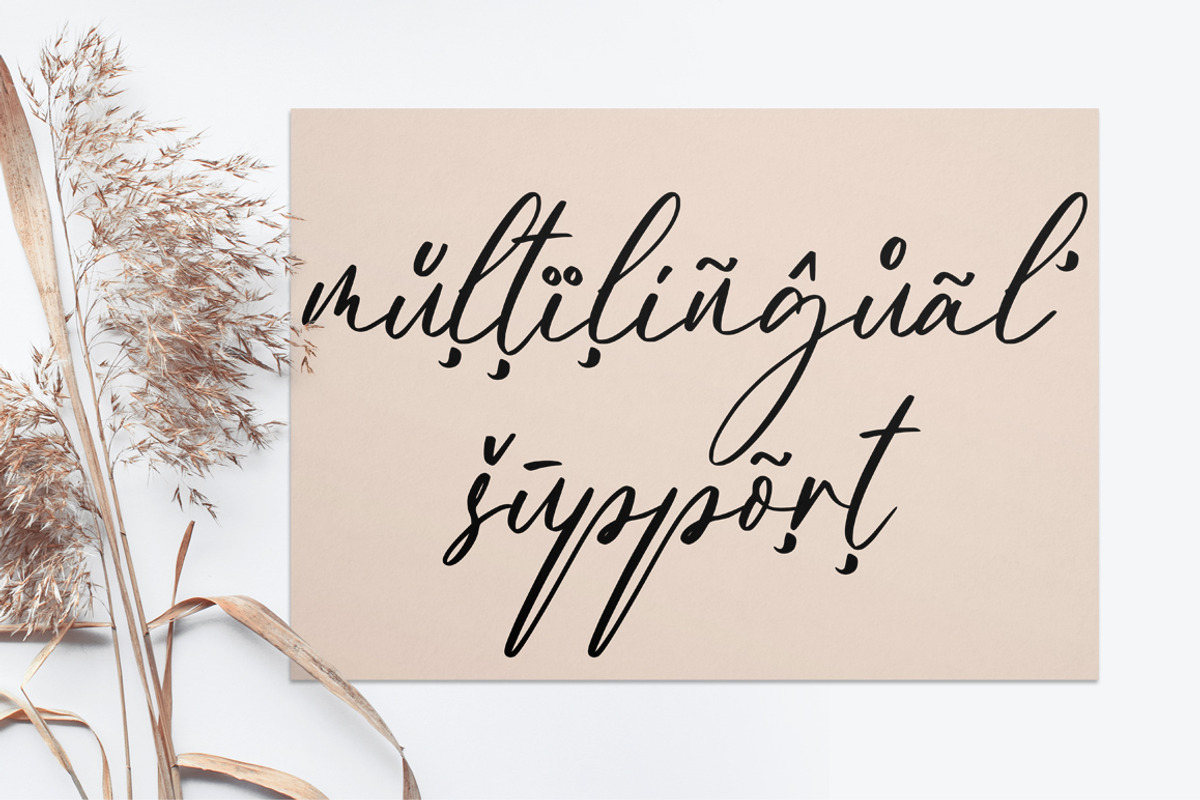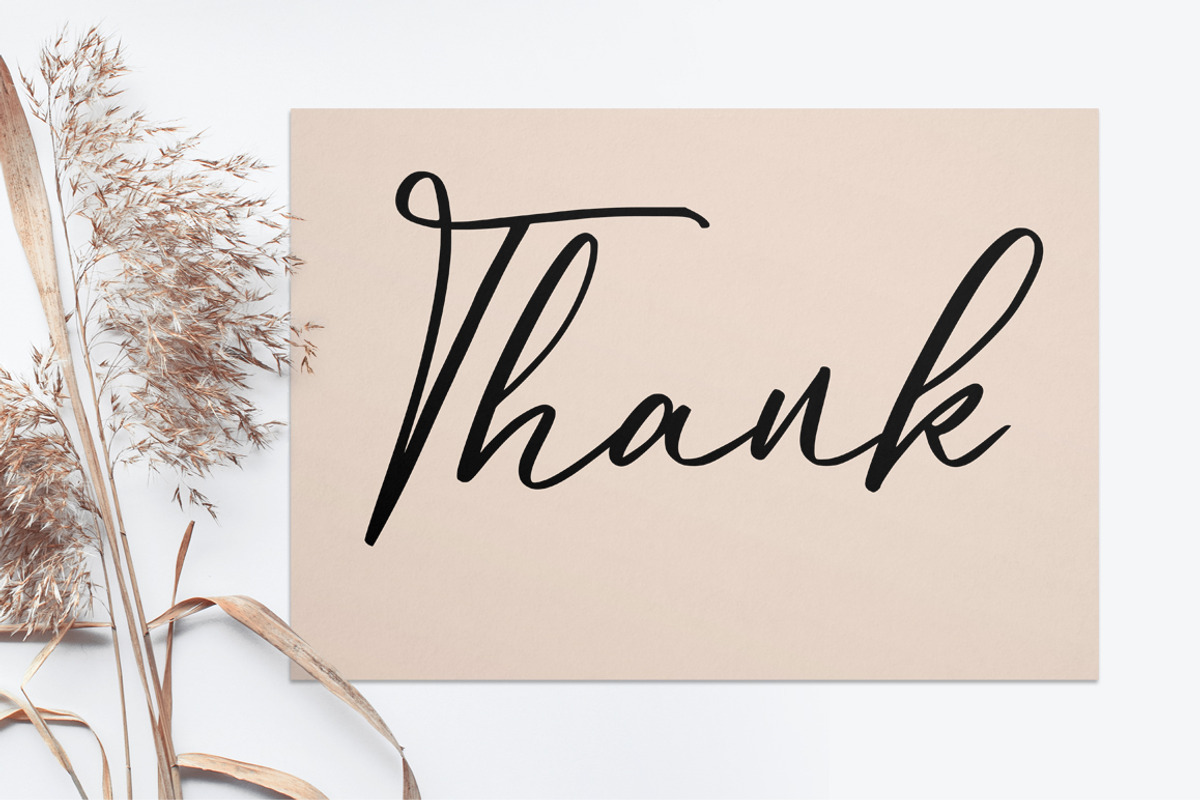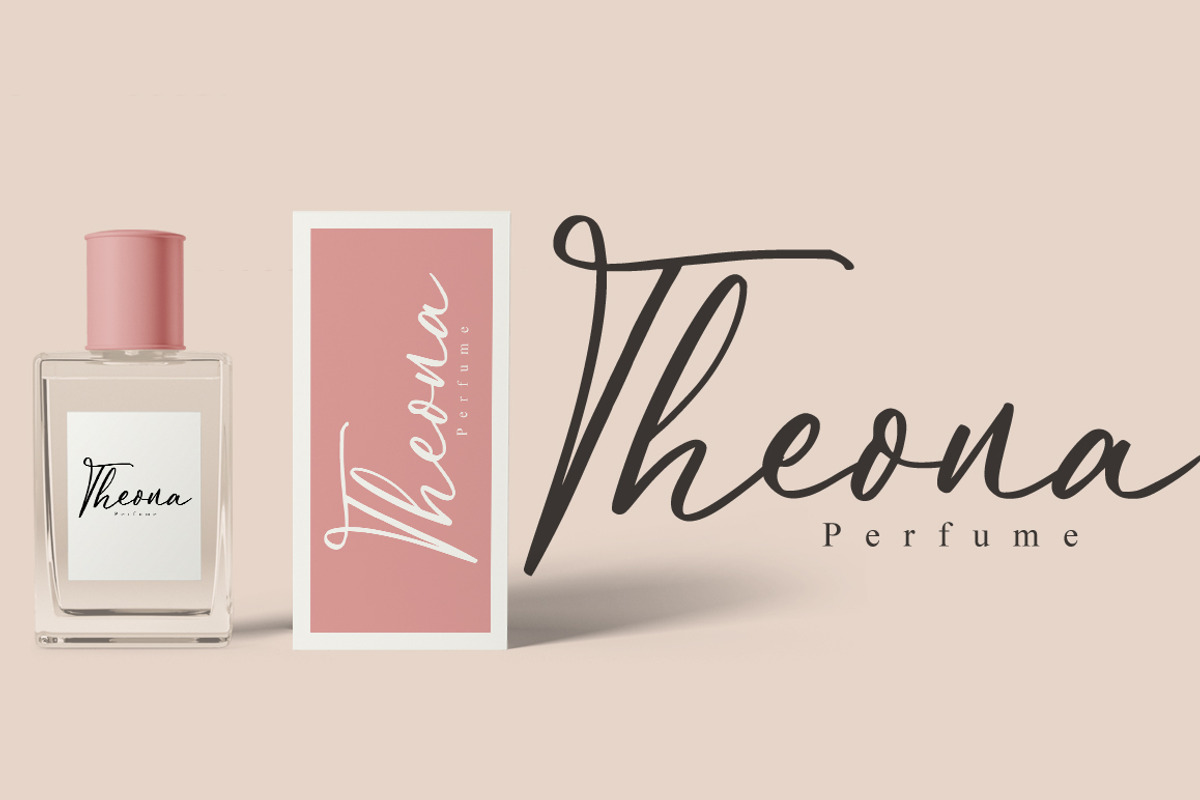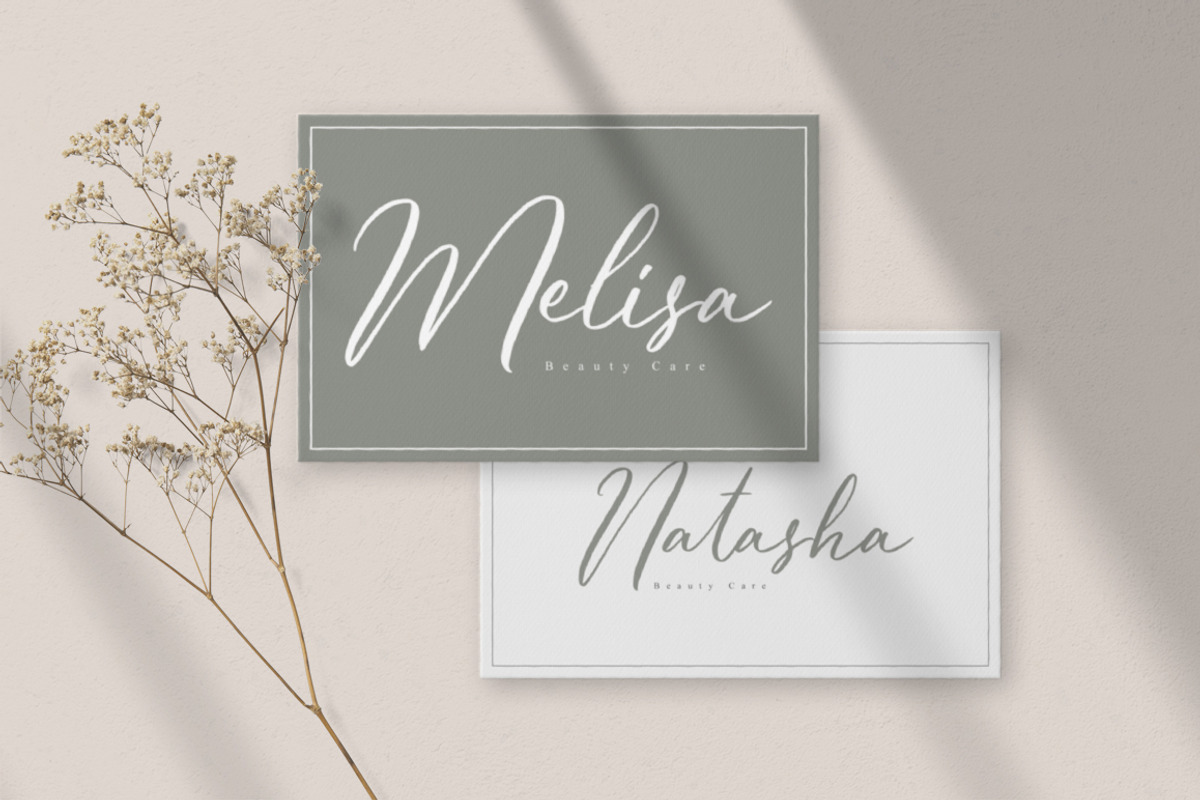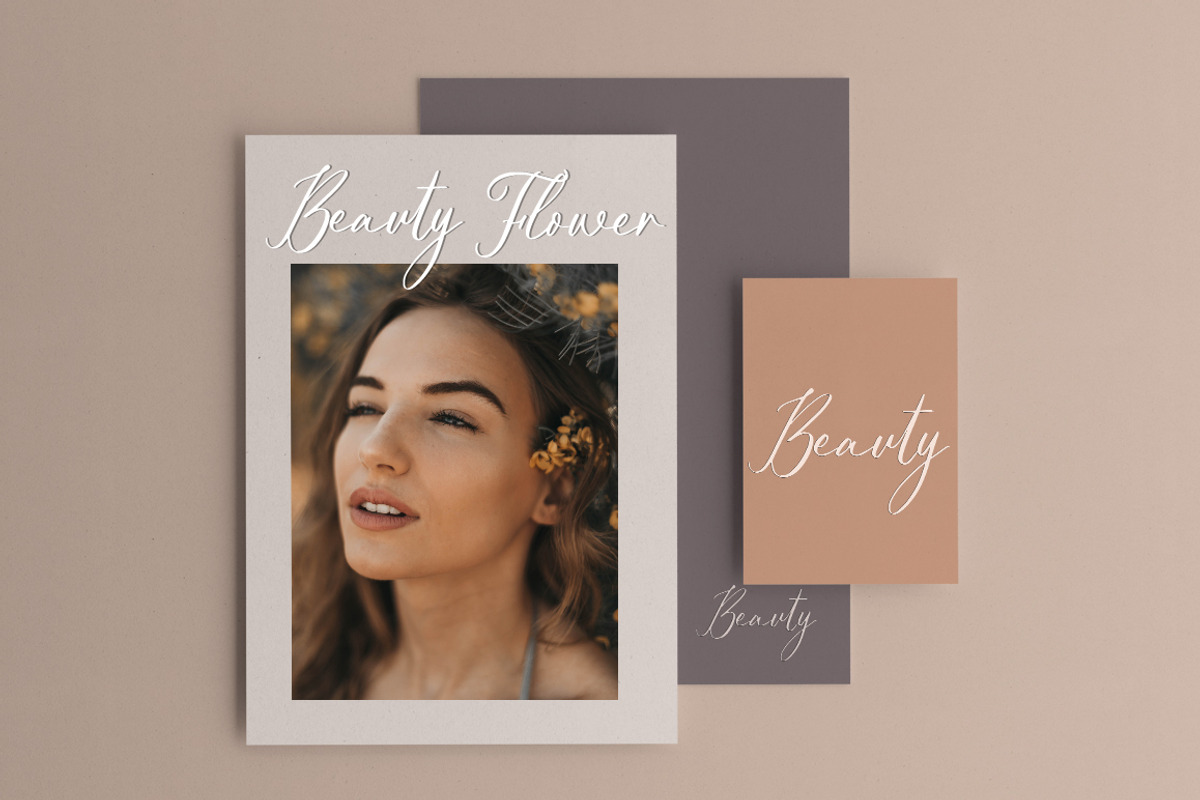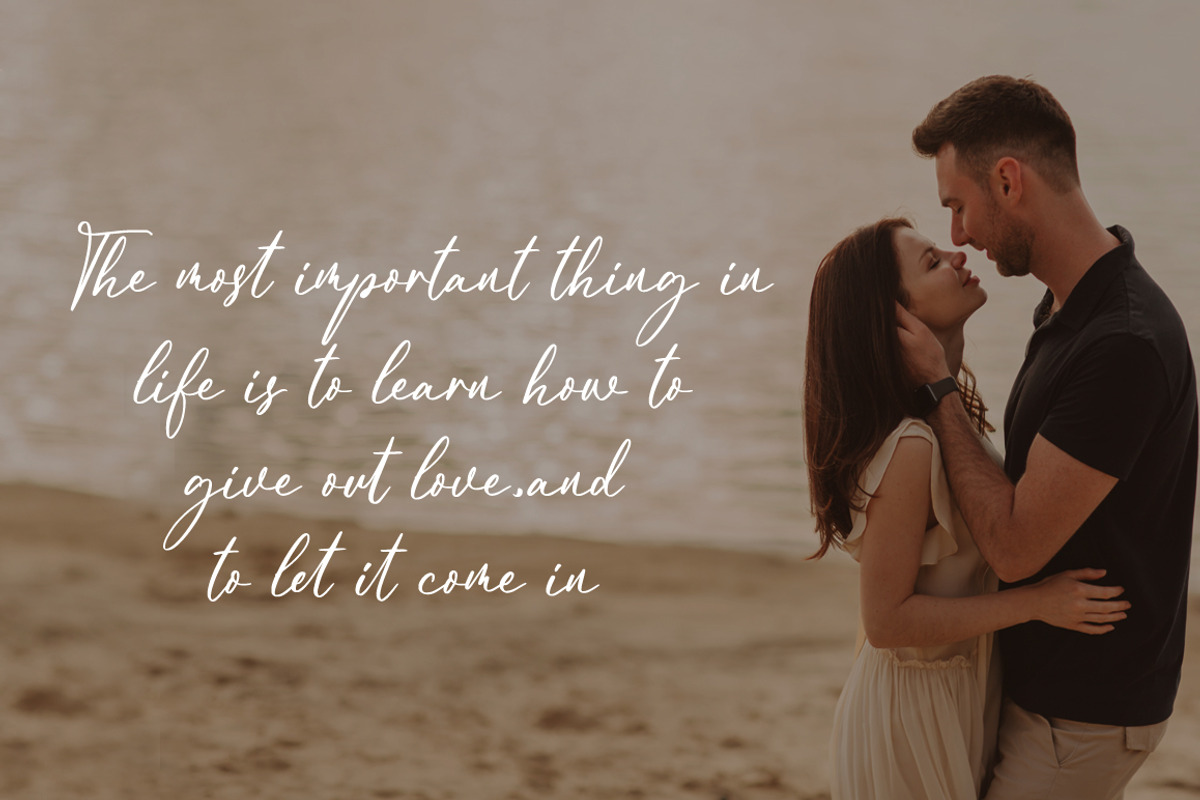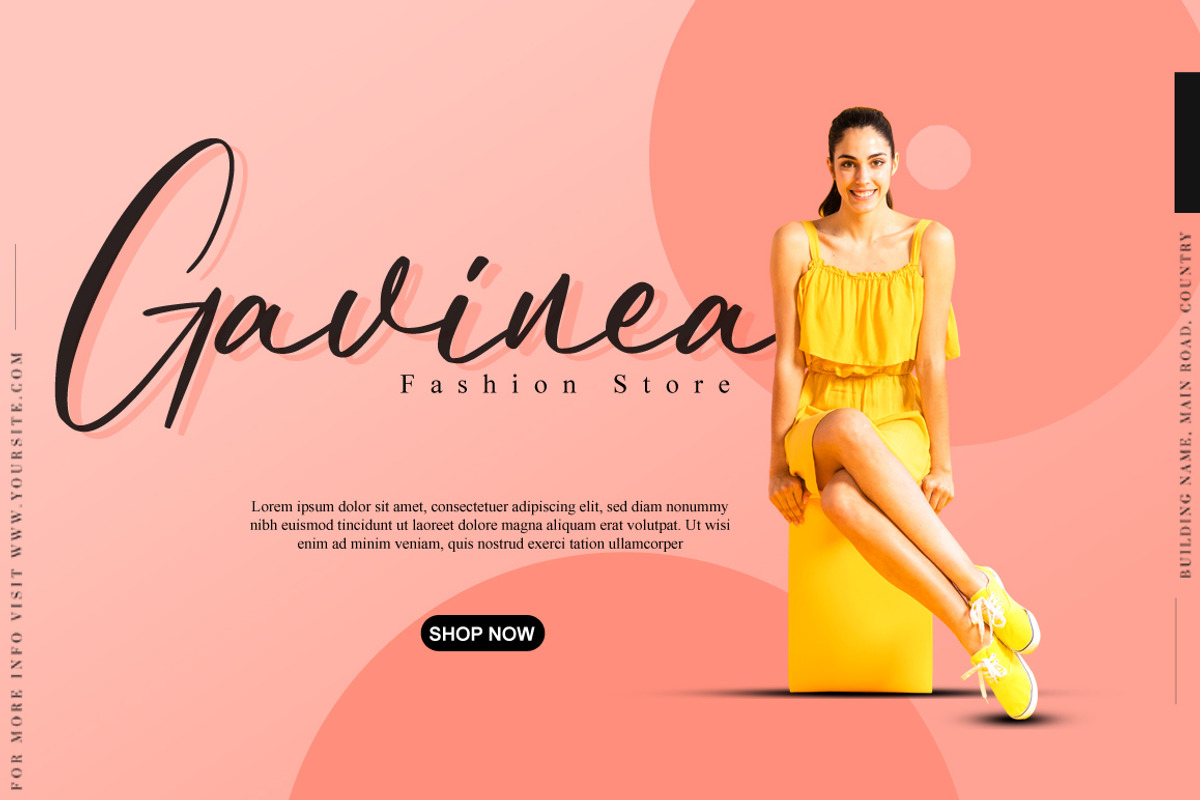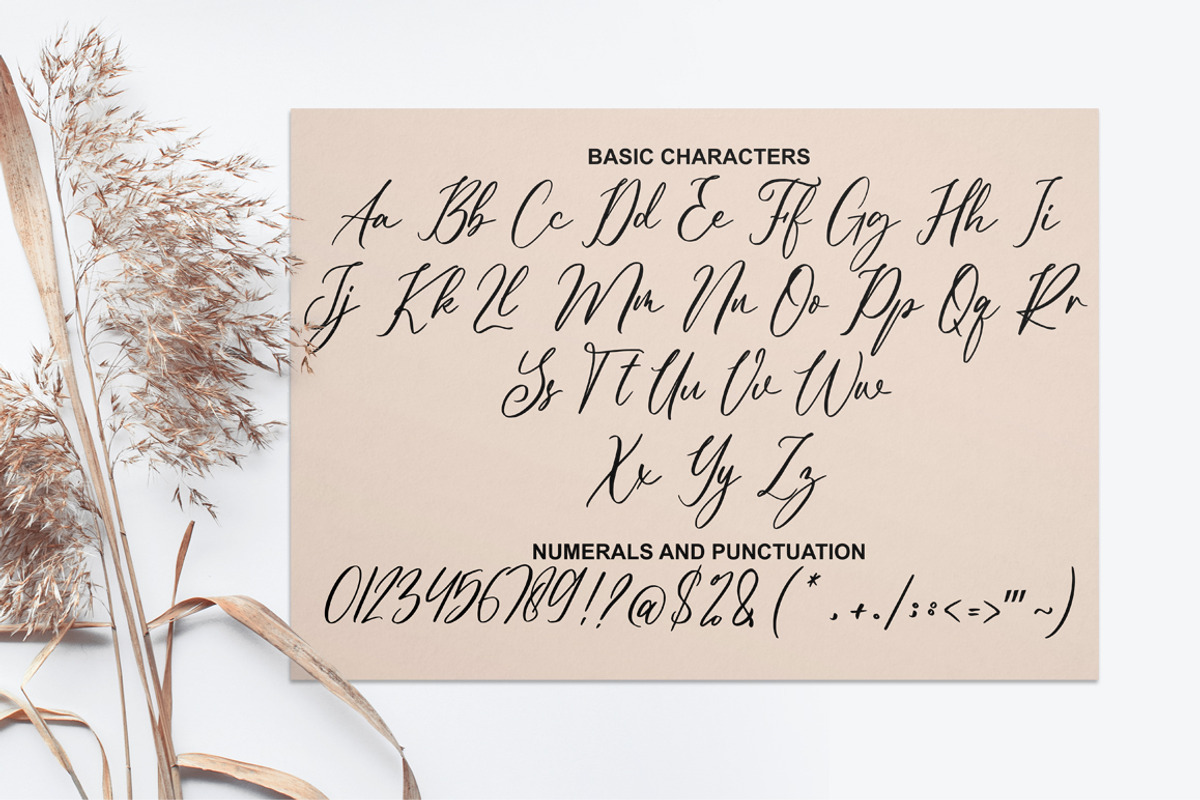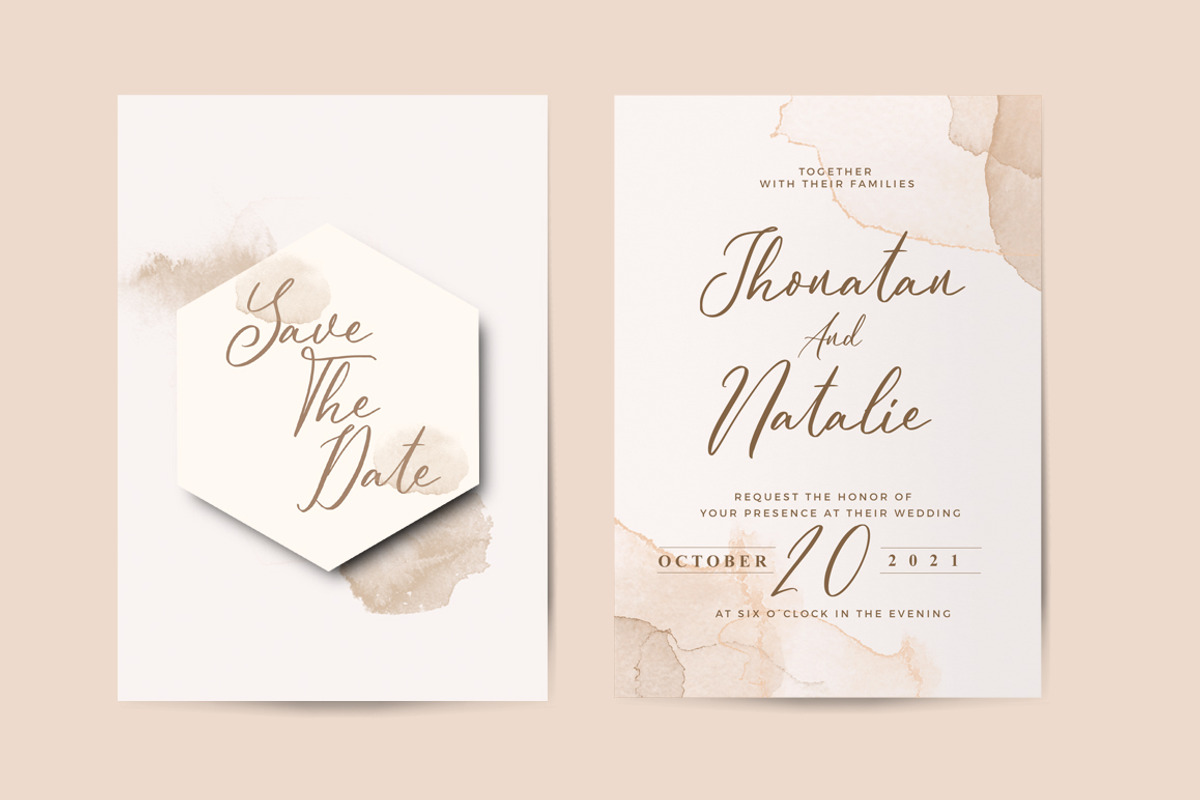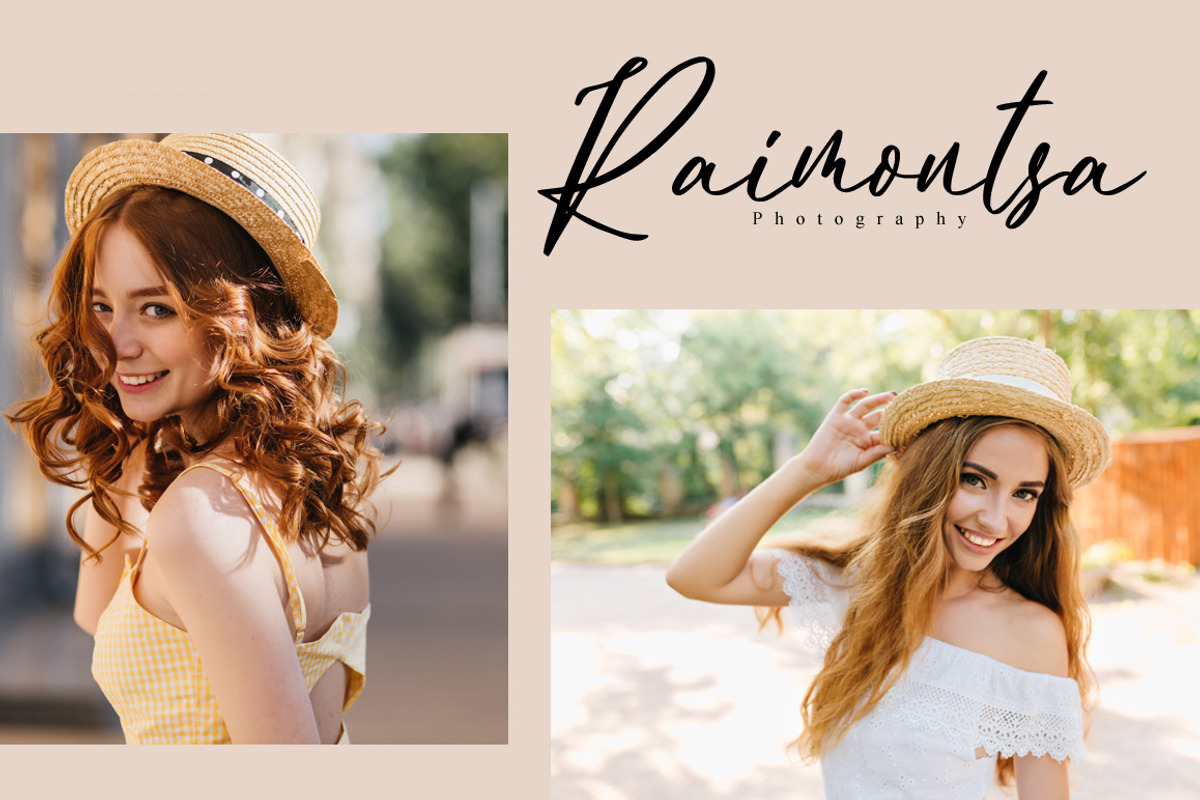
Alexanna a Modern Calligraphy Font
Alexanna is an elegant script font with a contemporary atmosphere and impeccable form, inspired by timeless classic calligraphy. Not too thin and not too thick, balanced and varied, this font was designed to enhance the beauty of your projects.